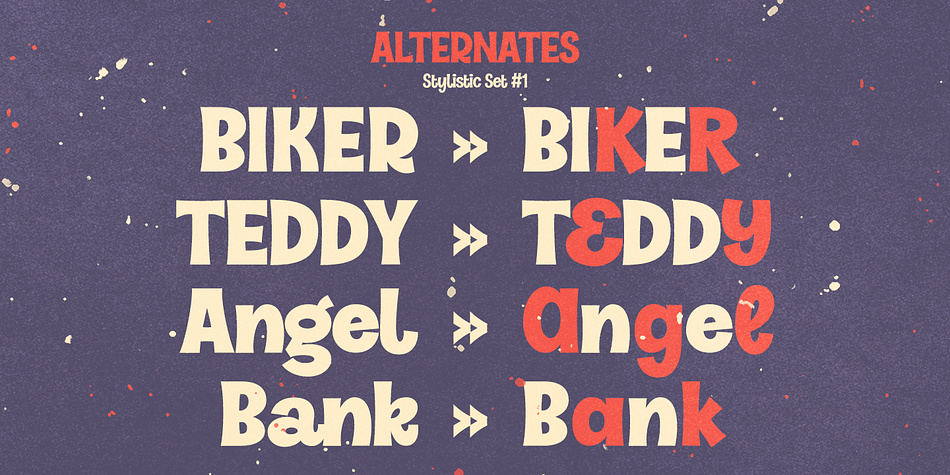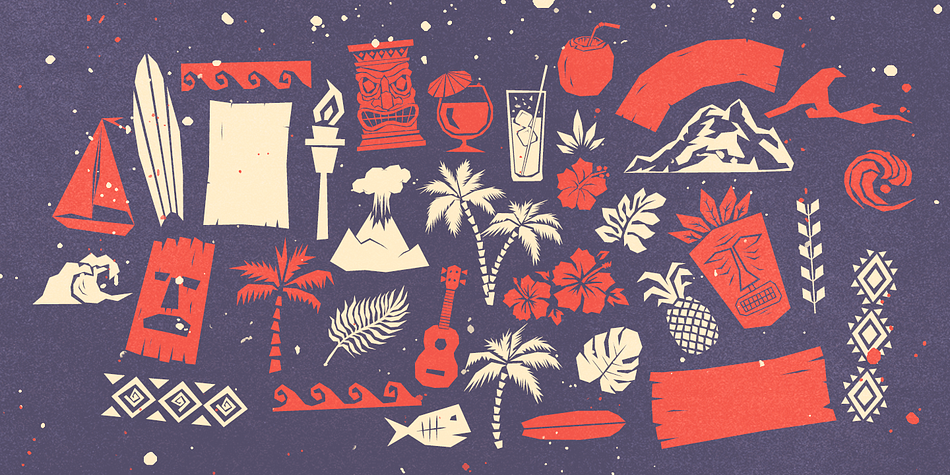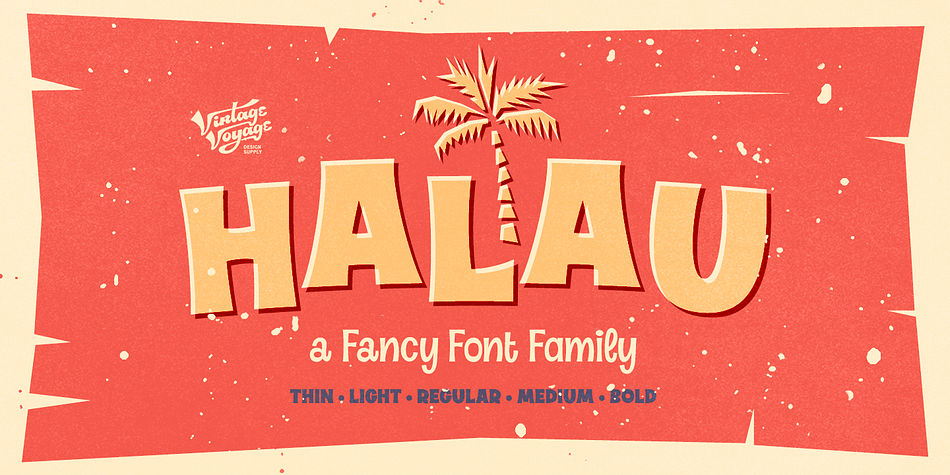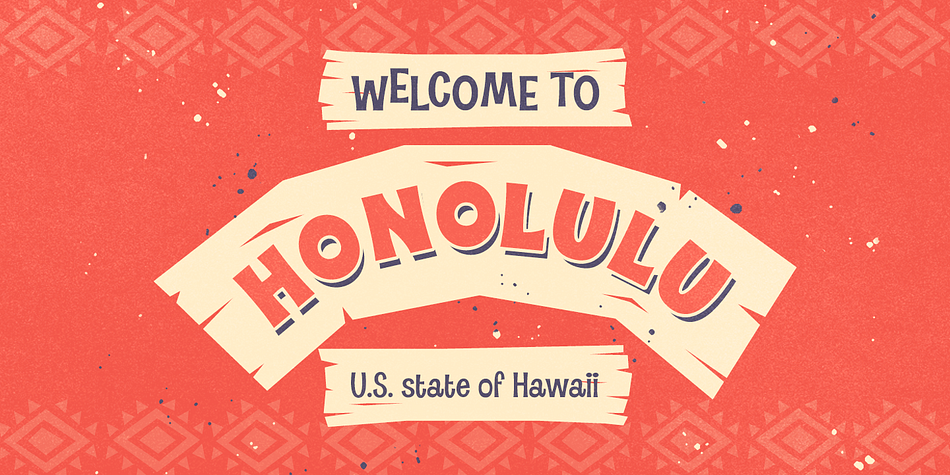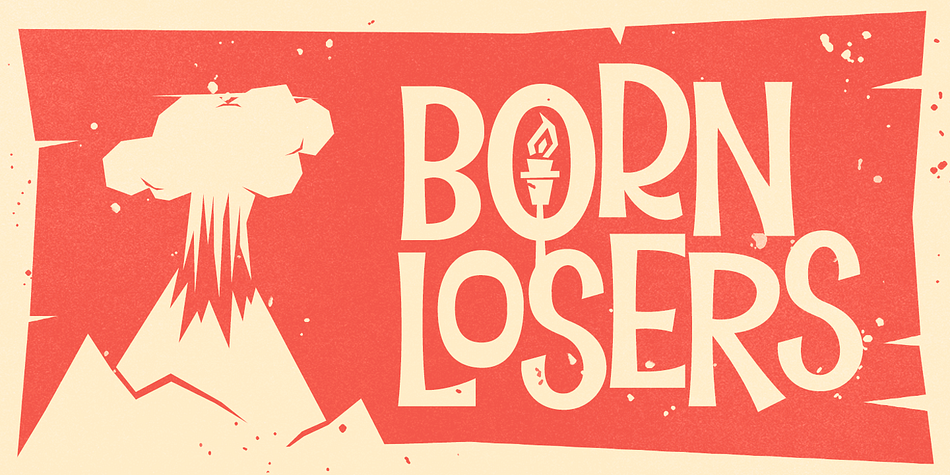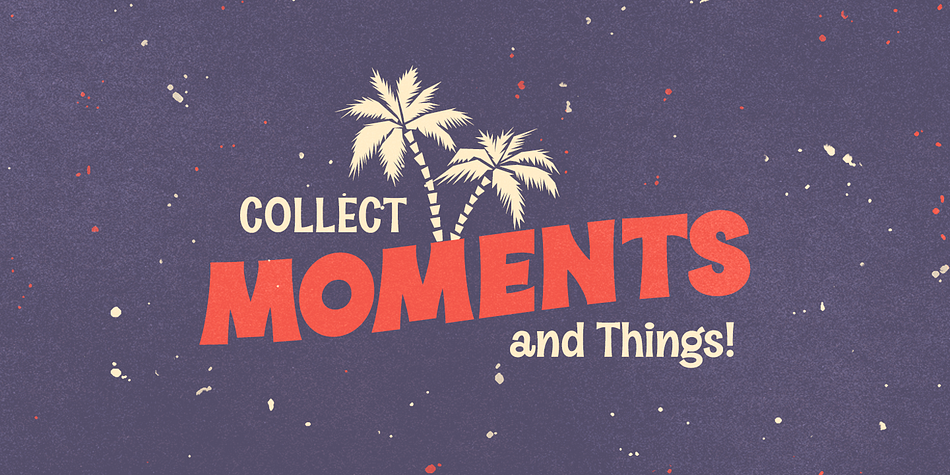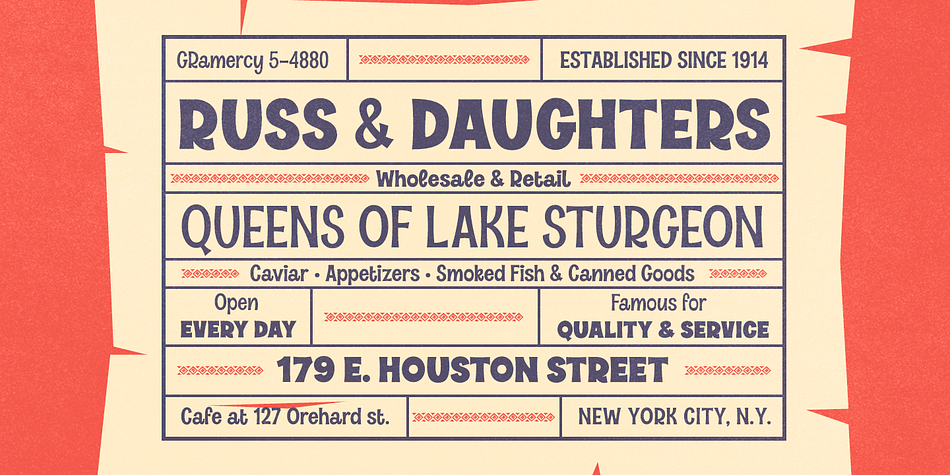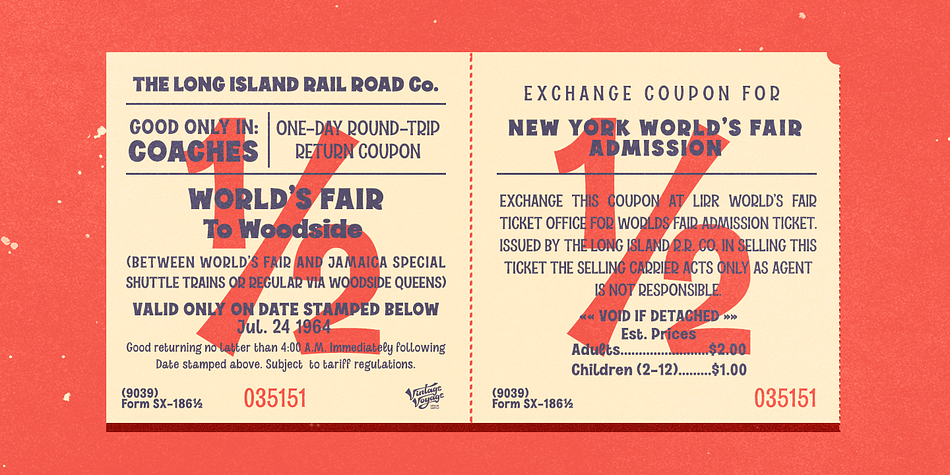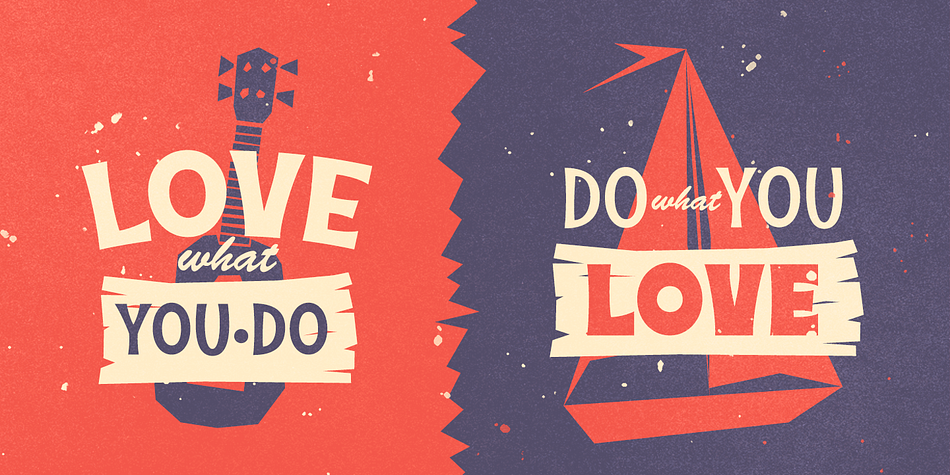
Designed by Pavel Korzhenko, Halau is a hand drawn and retro font family. This typeface has five styles and was published by Vintage Voyage Design.
Introduce you a new fancy font family HALAU. Clear, Elegant and Fun. Straight for Spring/Summer sunny projects. More fun & sun for your typo design! I really love this Retro Cartoon style in 60s or 70s advertising or Hawaii style posters. Combine different width styles for outstanding typography design. Some alternates (A, E, K, R, Y, a, g, l, k) give you more interesting result for your project. Also, you get Hawaii style illustration set as letters and numerals alternates (36 Total).
Five widths – Thin, Light, Regular, Medium and Bold.